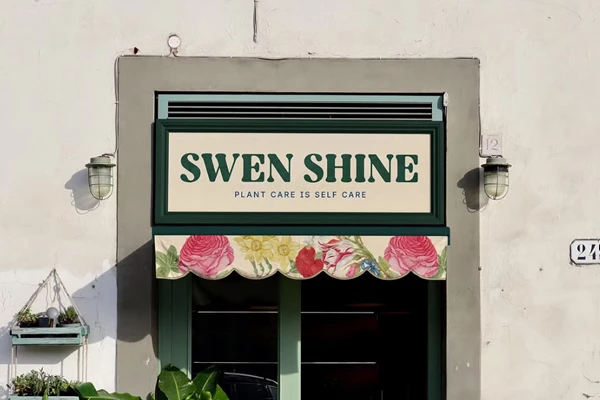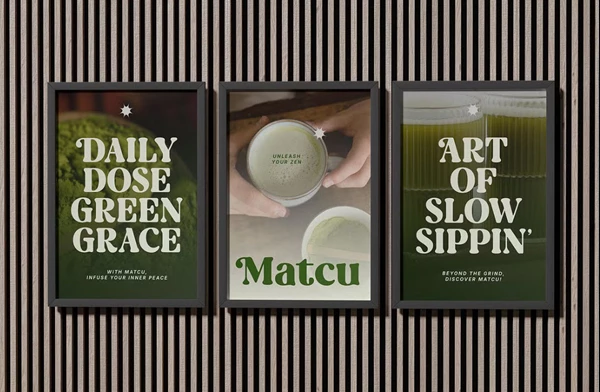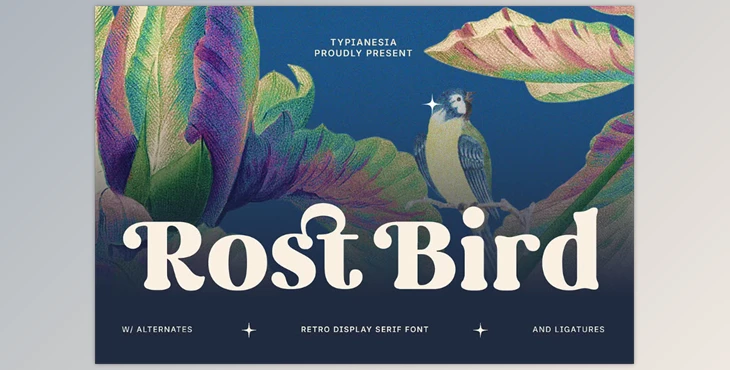
Rost Bird - Soft Retro Display Serif Font:
Rost Bird is a modern vintage retro display serif with personality. Its curves and detailing are funky enough to look great on a digital canvas while maintaining old-age sensibility, making it a perfect choice for those looking for vintage display typefaces that step out of the box. Rost Bird is great for logos, branding, and product packaging, posters, merchandising, advertising, headlines, and magazines, anything vintage with a sophisticated slant.
In addition, Rost Bird has a full set of alternatives and ligatures, giving a designer an opportunity to work with them as much or as little as desired to create a sophisticated and warm, friendly look or a bolder, more elegant style. Rost Bird is a fantastic font that combines old and new and vintage and contemporary into something that feels great and comfortable yet edgy and proper at the same time.